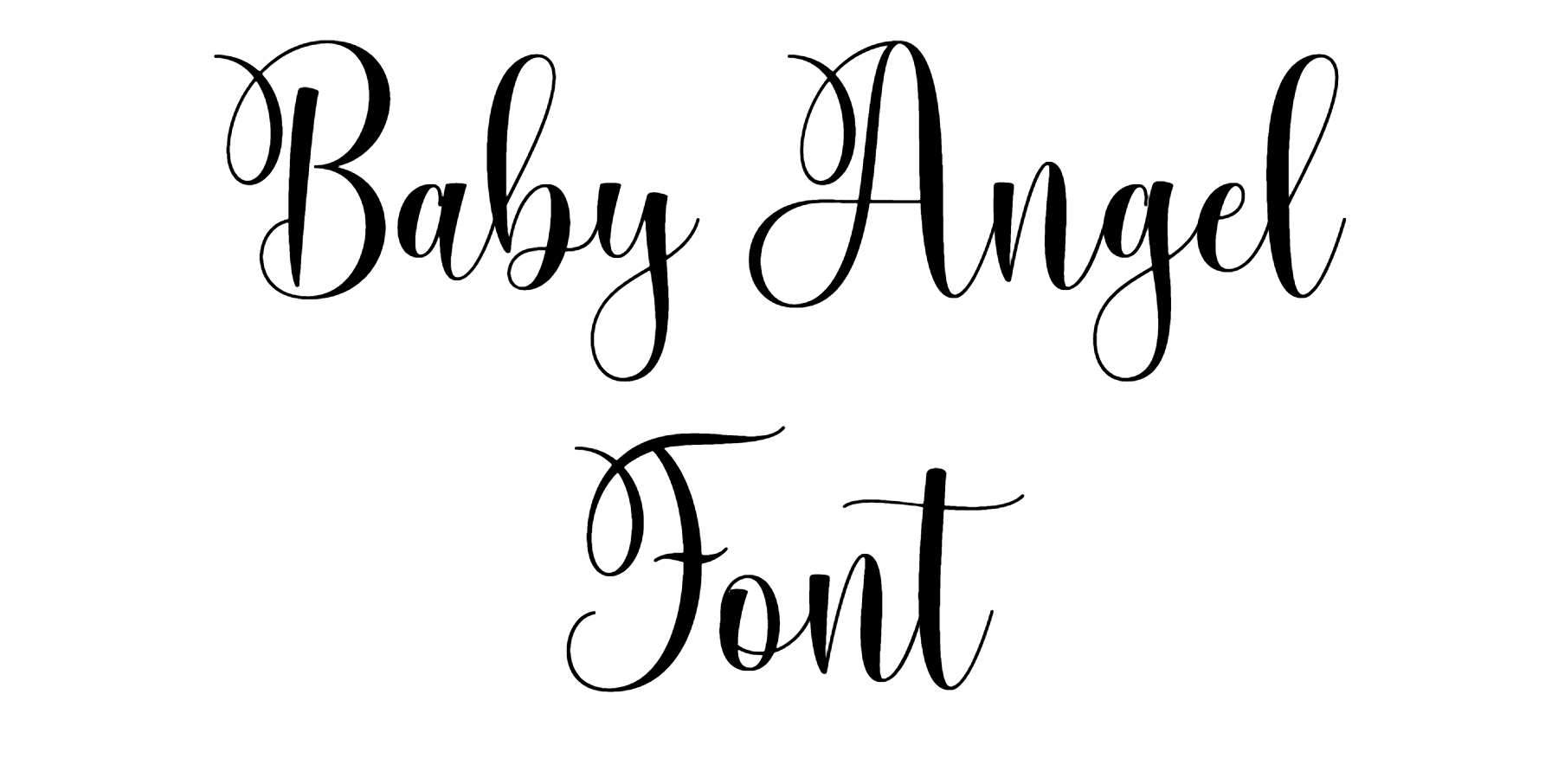
Baby Angel
Baby Angel is a calligraphy font designed by REKA SAFRIANI and published by SelotypeStudio. Its flowing, pen-made letters give names and short phrases a personal, polished look. You can download it for free and test it with your own words in the preview above.
What You Can Type With Baby Angel
You get every letter from A to Z in both cases and all the numbers from 0 to 9, which means Baby Angel can handle full sentences, dates and prices. Common punctuation such as &, !, ? and @ is included as well. It also has the accented letters you need for Spanish, German and Italian.
Where Baby Angel Works Best
Baby Angel is a natural fit for wedding invitations, certificates and elegant quotes. Script fonts read best in short bursts, so keep it to names, titles and one-line quotes. Skip all caps: script capitals are drawn to start a word, not to fill one.